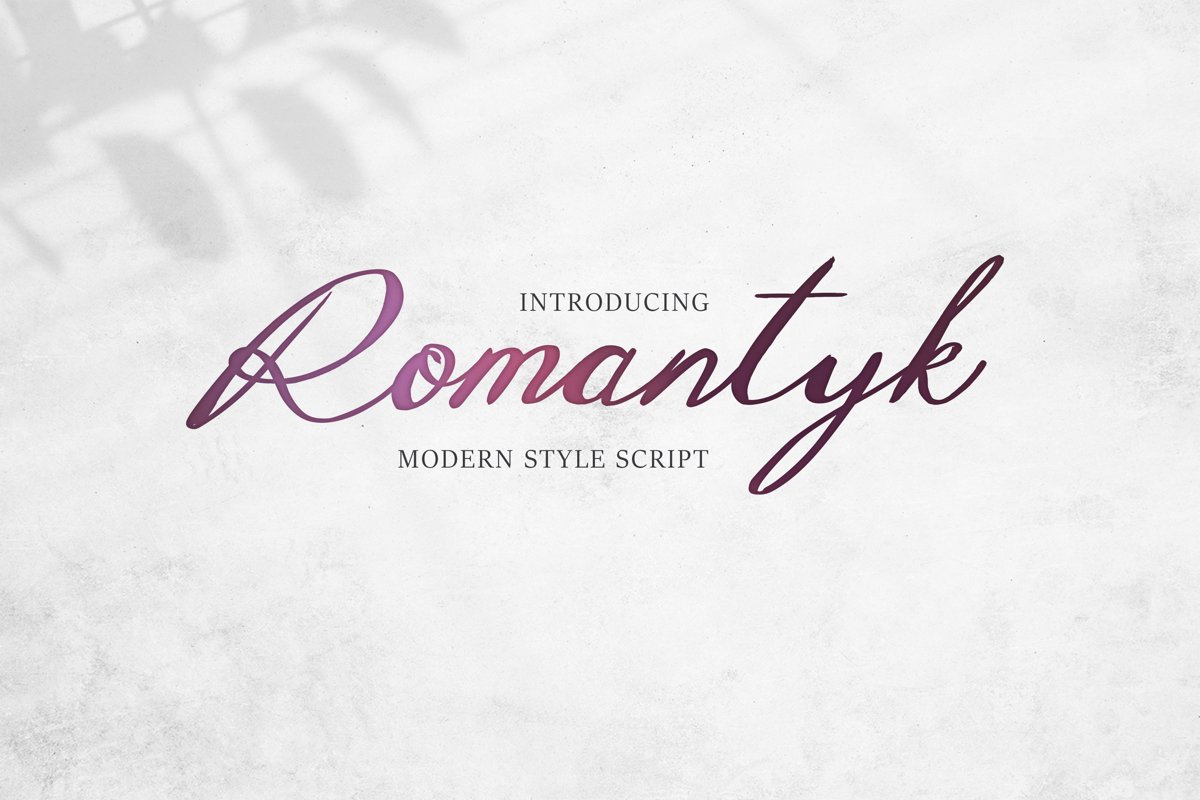
Romantyk Script
romantyk
Sweet and flowing handwritten font, fitting both formal and non-formal events. Its timeless style will be perfect for creating beautiful wedding invitations, greeting cards, logos and much more.